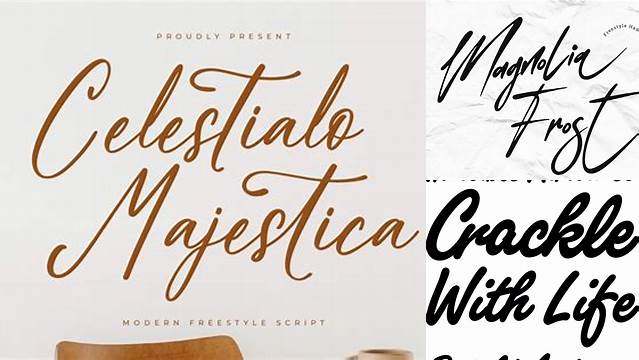
Free Freestyle Script Font Downloads: Unleash Your Creativity
Hey guys, are you looking to spice up your designs with some cool fonts? Specifically, have you been searching for a freestyle script font free download? Well, you've come to the right place! This article is all about helping you find and utilize some fantastic freestyle script fonts, perfect for a wide range of projects. We'll cover everything from where to download these fonts to how to use them effectively in your designs. So, grab your favorite beverage, get comfy, and let's dive into the world of beautiful script fonts!
Freestyle script fonts are like the superheroes of the typography world. They bring a touch of personality, elegance, and often, a handmade feel to any design. Think about invitations, logos, social media graphics, or even website headers – a well-chosen script font can instantly elevate the aesthetic. The best part? There's a huge selection of free freestyle script fonts available, meaning you don't have to break the bank to achieve a professional look. But with so many options out there, it can be tricky to know where to start. That's where we come in! We'll guide you through the process, helping you find the perfect freestyle script font to match your creative vision. Let's get started by looking at some of the best places to find these amazing fonts!
- Licensing: This is HUGE, guys! Always, always check the font license before using a font, especially if you're planning to use it for commercial purposes. Some fonts are free for personal use only, meaning you can't use them for anything that makes you money (like logos for a business or designs for a client). Look for licenses like the SIL Open Font License (OFL), which generally allows for both personal and commercial use. The license will be clearly stated on the website where you download the font.
- Font Style and Personality: Freestyle script fonts come in many different styles. Some are elegant and flowing, while others are more playful and casual. Some mimic calligraphy, and others are more modern and edgy. Consider the overall tone and message of your project. Does it need to be sophisticated and formal, or fun and informal? Choose a font that complements the style and personality of your design. The font should align with your brand identity.
- Readability: While script fonts can be beautiful, they can also be challenging to read, especially at smaller sizes. Ensure the font you choose is legible, particularly for body text. Avoid fonts with overly ornate details or complex letterforms if readability is critical. Try testing the font in different sizes and on various backgrounds to see how it looks. Remember, the goal is to enhance the message, not make it difficult to decipher.
- Font Pairing: When using a script font, you'll often need to pair it with a secondary font for body text or headings. Choose a font that complements the script font without clashing. A good rule of thumb is to pair a decorative script font with a more neutral, readable font like a sans-serif or a simple serif font. This combination creates visual harmony without competing with the script font's beauty.
- Font Weights and Variations: Check if the font family includes different weights (e.g., regular, bold, light) and styles (e.g., italic). Having these variations gives you more flexibility in your design. You can use different weights to create emphasis or hierarchy in your text. Italic styles can add a touch of elegance or personality.
By paying close attention to these factors, you can make informed decisions about which freestyle script fonts will best suit your project and achieve the desired impact. Remember, the right font can elevate your design, while the wrong one can detract from it. So, take your time, explore your options, and choose wisely!
Utilizing Your Freestyle Script Fonts: Design Tips and Tricks
Alright, you've got your free freestyle script font download all set up and ready to go. Now, how do you actually use it to create stunning designs? Here are some tips and tricks to help you get the most out of your script fonts:
- Consider Your Use Case: Where will you be using the font? For a logo, a script font can be a great choice to create a personalized, handcrafted feel. For invitations, it adds an element of elegance and sophistication. For social media graphics, it can help your posts stand out. The best font depends on the specific purpose.
- Limit Usage: Script fonts, with their intricate details, are best used sparingly. They are most effective as headlines, titles, or short bursts of text. Overusing a script font can make your design look cluttered and difficult to read. Don't use it for large blocks of text, like paragraphs, as it might make it difficult for the readers to understand the message.
- Spacing Matters: Kerning (the space between individual letters) and leading (the space between lines of text) are especially crucial with script fonts. Pay close attention to how the letters interact with each other. Sometimes, you'll need to adjust the kerning manually to achieve a visually pleasing result. Make sure the space between the lines is enough, so it will not be hard to read.
- Contrast and Hierarchy: Pair your script font with a more straightforward font for body text or headings to create visual contrast. Use different font sizes, weights, and colors to establish a clear hierarchy in your design. This helps guide the reader's eye and makes the content more engaging.
- Color Choices: The right color can dramatically enhance the impact of your script font. Choose colors that complement the font's style and personality. For example, a classic script font might look great in black, white, gold, or deep jewel tones. A more playful script font might benefit from brighter, more vibrant colors.
- Backgrounds: Consider the background of your design. A script font can look great on a simple, clean background. Avoid using complex backgrounds that might distract from the font. You can also experiment with textures or patterns to add visual interest.
- Experiment and Play: Don't be afraid to experiment! Try out different combinations of fonts, colors, and layouts to see what works best. Play around with different effects, such as shadows, outlines, or textures, to add depth and dimension to your text. The key is to have fun and explore the possibilities!
Even after you have gone through your freestyle script font free download journey, you may run into some common issues. Here's how to fix these:
- Font Not Showing Up: Make sure the font is properly installed on your computer. Restart your design software after installing a new font, as it will not automatically recognize the new font. Also, check if the font is compatible with the software you're using.
- Glyph Issues: Some fonts have unusual glyphs (special characters) or ligatures (joined letters). You might need to enable OpenType features in your design software to access these. Sometimes, you can copy and paste specific characters to fix the issue.
- Font Looks Jagged: This can happen if the font is not rendered correctly at a certain size. Try adjusting the font size or anti-aliasing settings in your design software. Also, ensure the font is high quality and has been designed for screen display.
- Kerning Problems: Many design programs allow you to adjust kerning manually. If letters are overlapping or spaced too far apart, adjust the kerning to improve the readability. If the problems persist, use a different font.
- Compatibility Issues: Fonts might not render well in older software or different operating systems. Make sure your design software and operating system support the font's format (e.g., .ttf, .otf). Consider converting the font to a more compatible format if necessary.
Final Thoughts: Embracing the Beauty of Freestyle Script Fonts
So, there you have it! You're now armed with everything you need to find, download, and effectively use free freestyle script fonts. From finding reputable sources to understanding licensing and design tips, you're well on your way to elevating your designs with beautiful typography. Remember to explore different styles, experiment with pairings, and, most importantly, have fun! The world of fonts is vast and exciting, and with a little creativity, you can create stunning visuals that capture attention and communicate your message effectively. Happy designing, everyone!